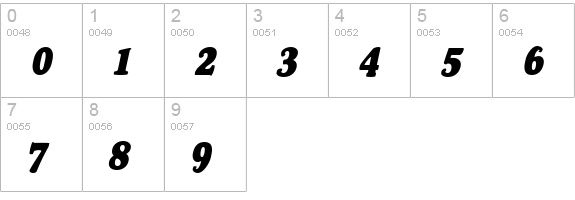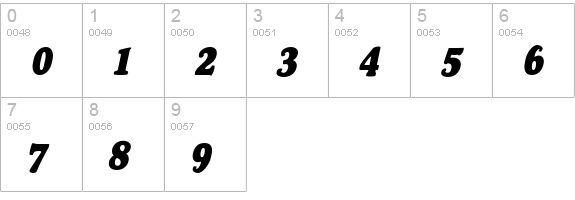
BroadsideCondensed Italic Font Details
BroadsideCondensed Italic is a distinctive, italic variant in the BroadsideCondensed typeface family \xE2\x80\x94 well suited to design and typography projects.
Introducing BroadsideCondensed Italic font - a sleek and stylish typeface that exudes elegance and sophistication. This font features a unique italicized design that adds a touch of flair to any project. With its condensed form, BroadsideCondensed Italic is perfect for adding a modern and contemporary look to your designs. Whether you're creating posters, logos, invitations, or any other creative project, BroadsideCondensed Italic font is sure to make a statement. Its bold and dynamic appearance will grab the attention of your audience and leave a lasting impression. And the best part? BroadsideCondensed Italic font is completely free to download at FontsMarket.com. That's right, you can access this stunning font at no cost and use it in your personal and commercial projects without any restrictions. So why wait? Download BroadsideCondensed Italic font today and take your designs to the next level!